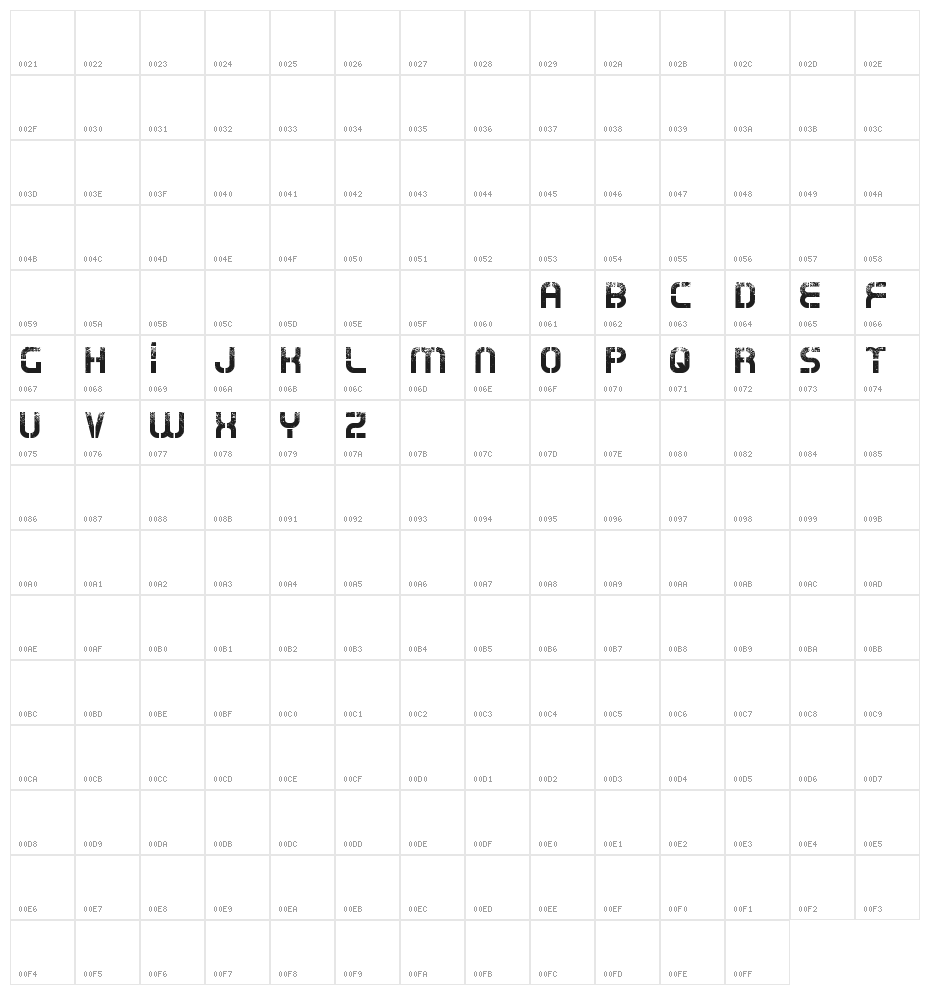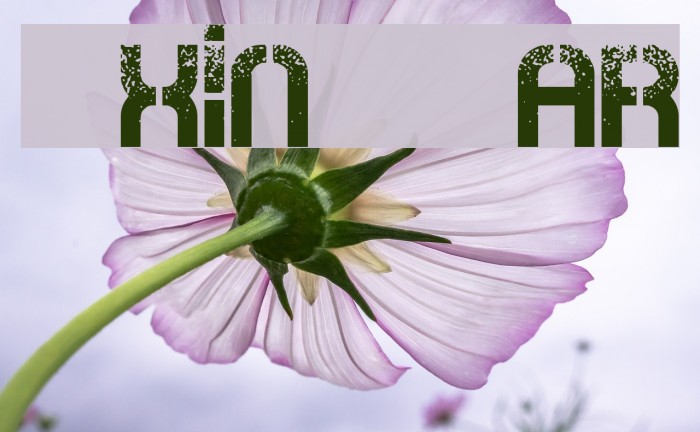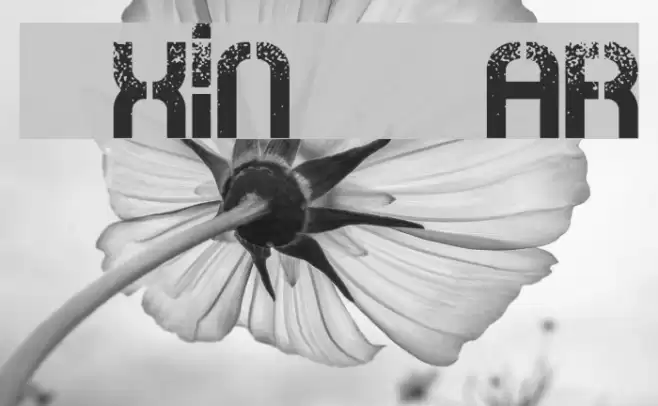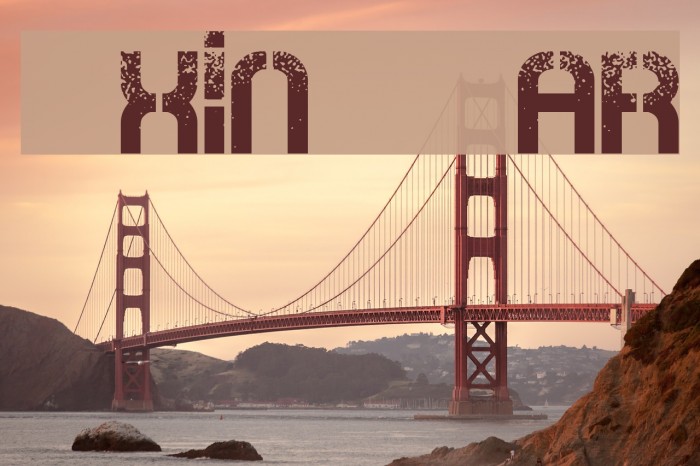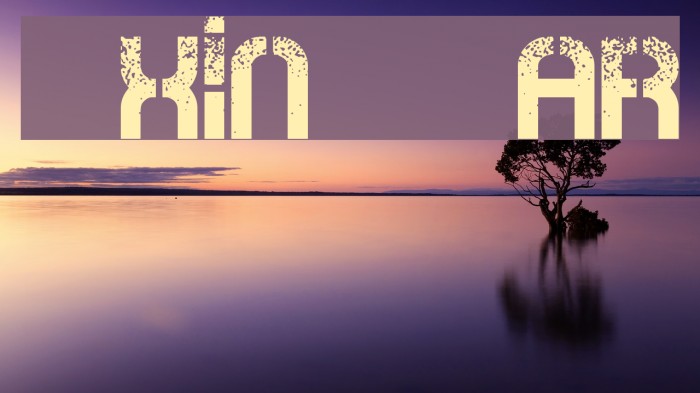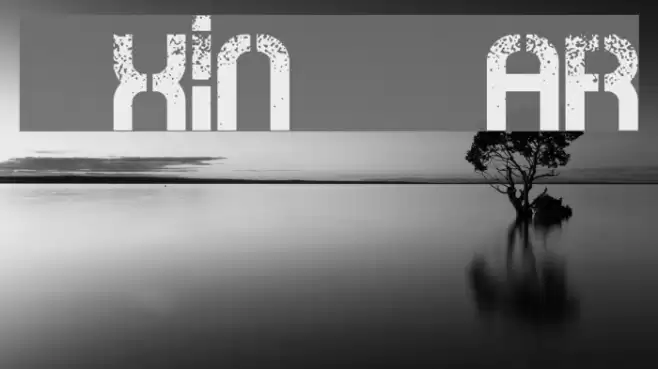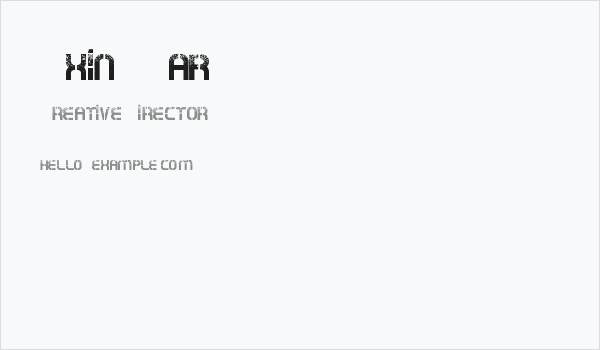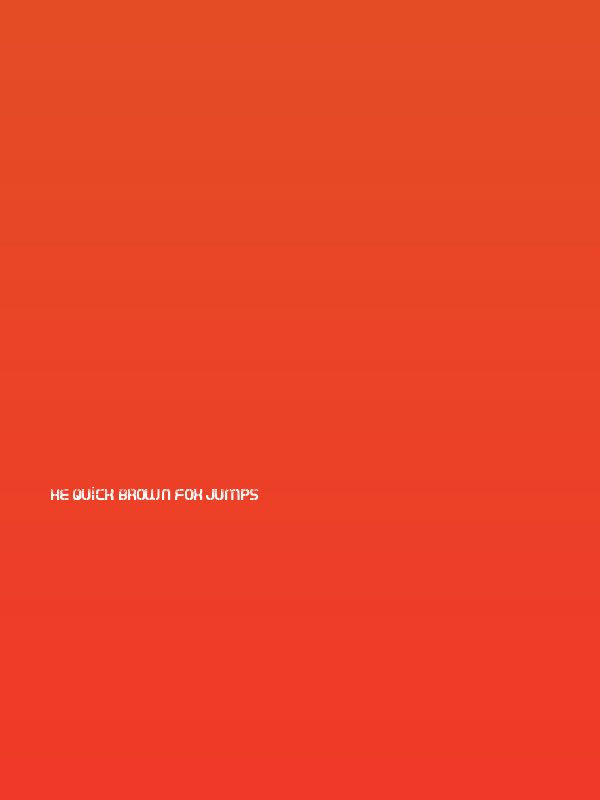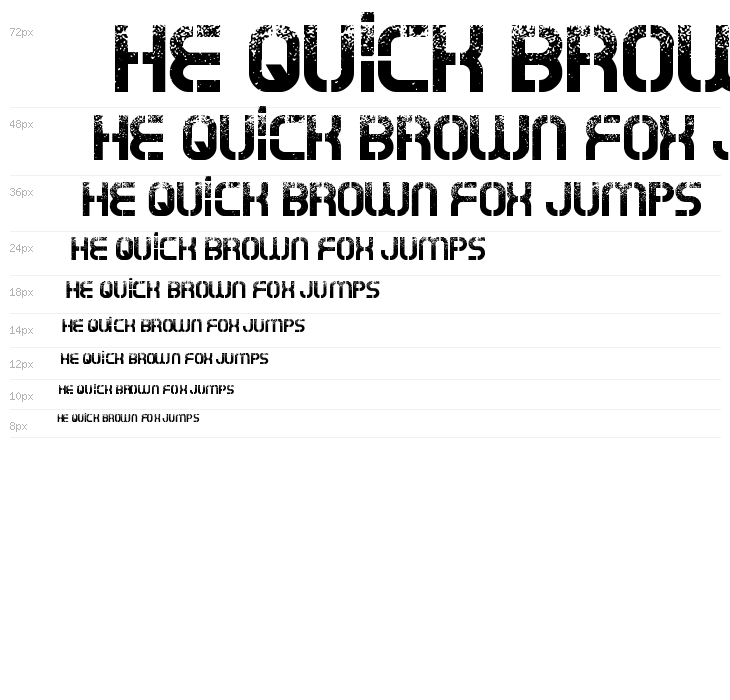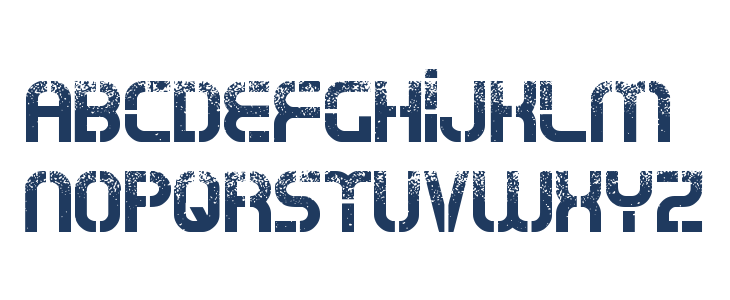
Oxin War Font
Oxin War Description
This font features a bold, distressed style with a futuristic and industrial feel. The characters are blocky and geometric, with a unique texture that gives them a worn, gritty appearance. The uppercase letters are uniform in height, while the lowercase letters maintain a consistent style, enhancing readability. The numbers and special characters follow the same design, ensuring a cohesive look across all glyphs. This font's distinct appearance makes it ideal for projects that require a strong, impactful visual presence.
| Overall Style | Futuristic, Industrial, Distressed |
| Proposed Projects | Ideal for video game titles, movie posters, branding for tech companies, or any project needing a strong, gritty aesthetic. |